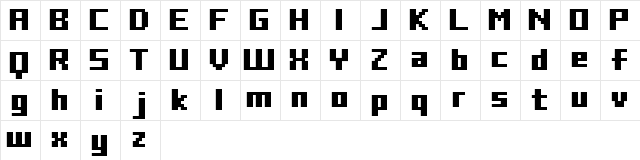
FFF Freedom Trial Regular
Design Context for FFF Freedom Trial Typeface
FFF Freedom Trial takes a measured approach to typography — its balanced proportions and neutral character make it a reliable workhorse for both digital and print work.